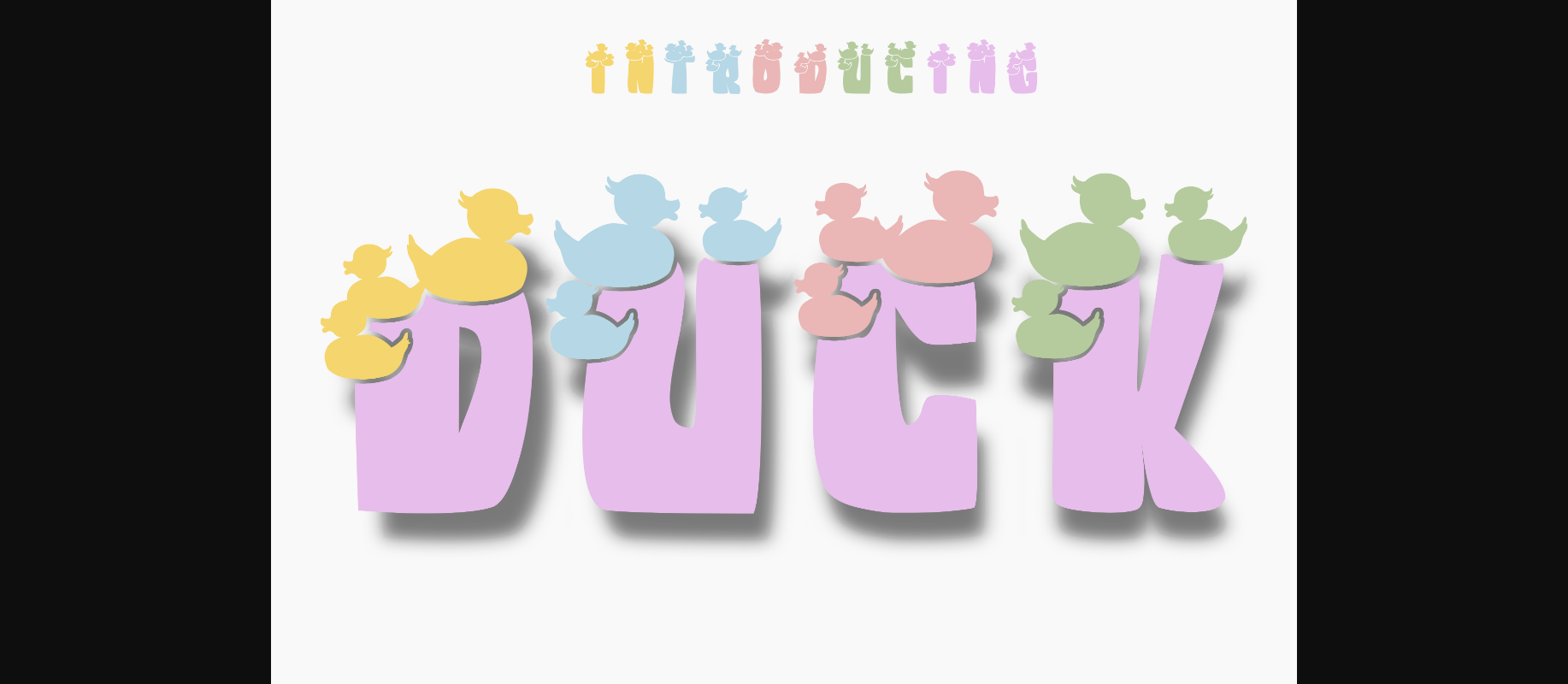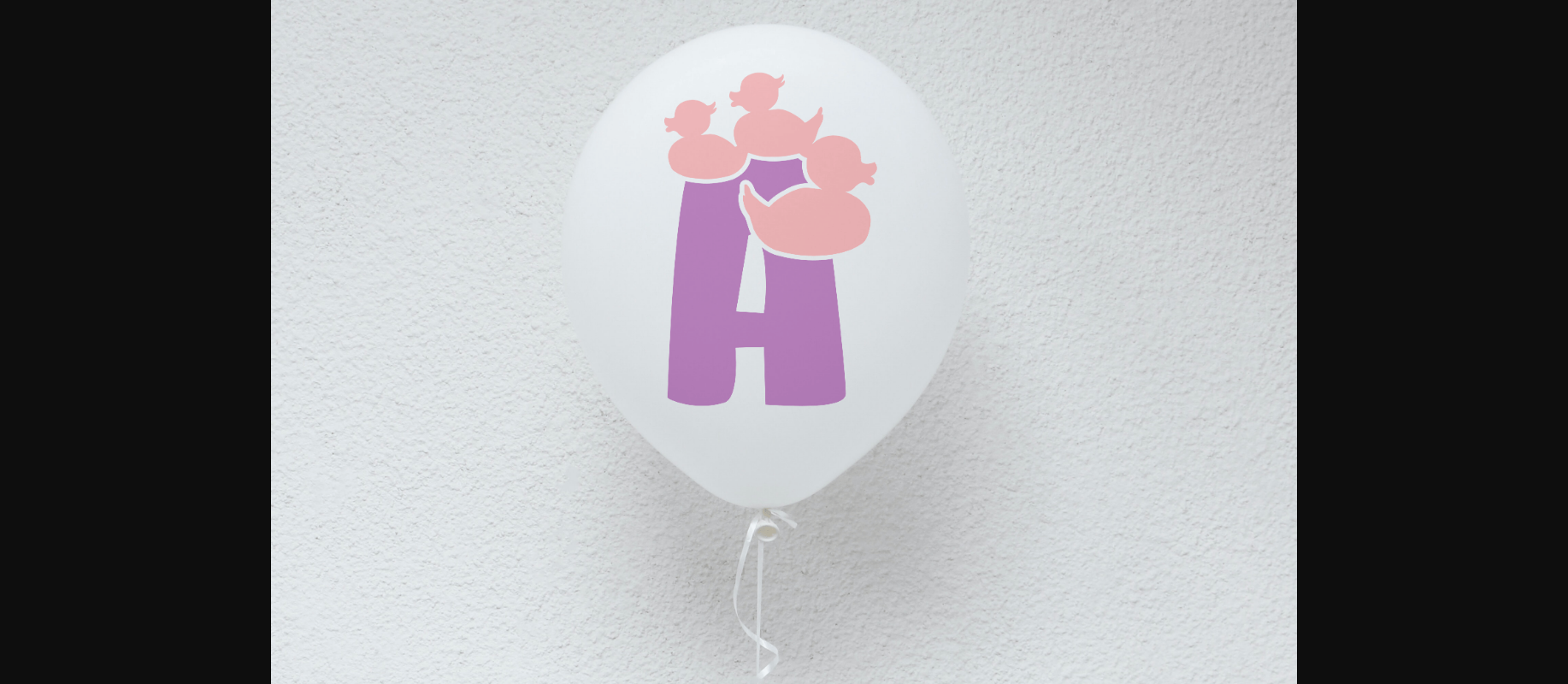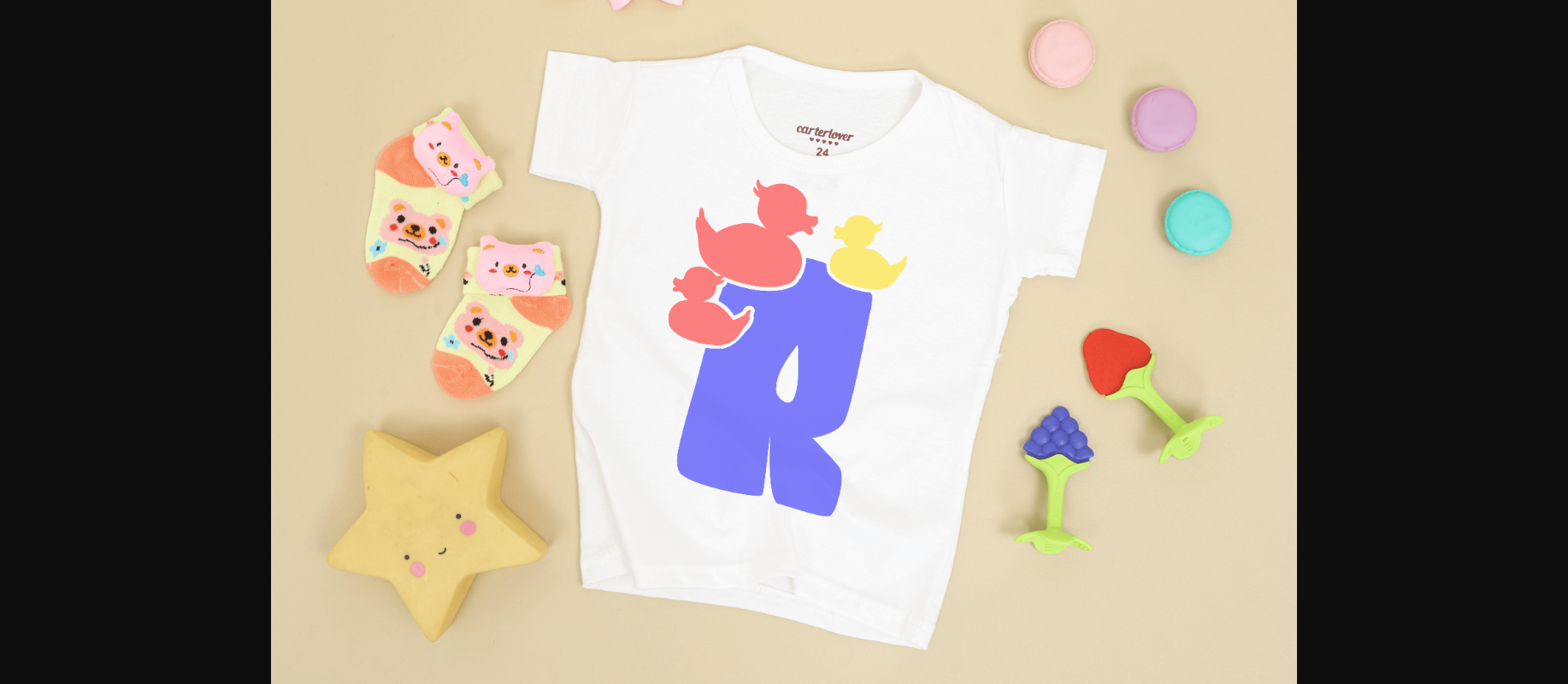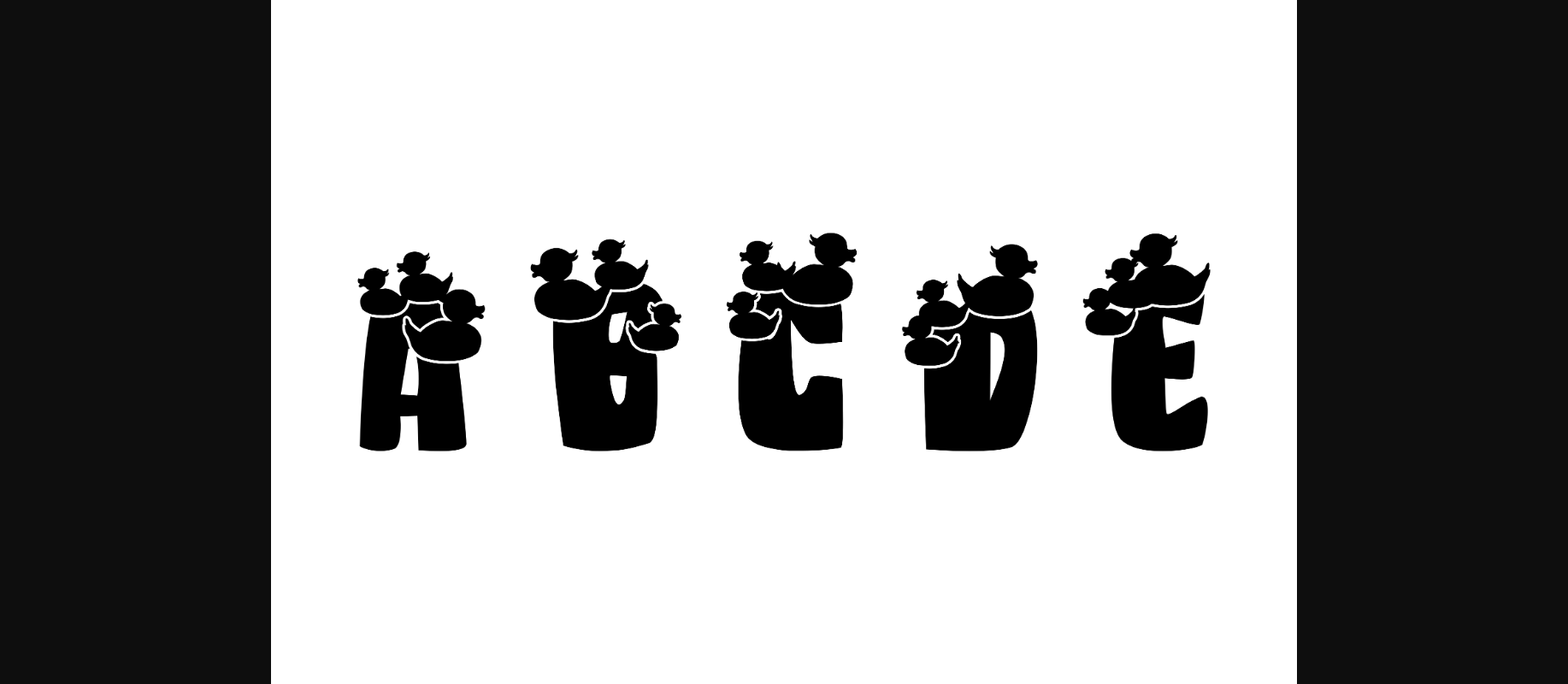
Duck Font
About Duck Font
Duck is a beautiful and sweet decorative font. It looks fresh, playful, and fun, and it will look great for both formal school projects or informal kid’s activity creations!